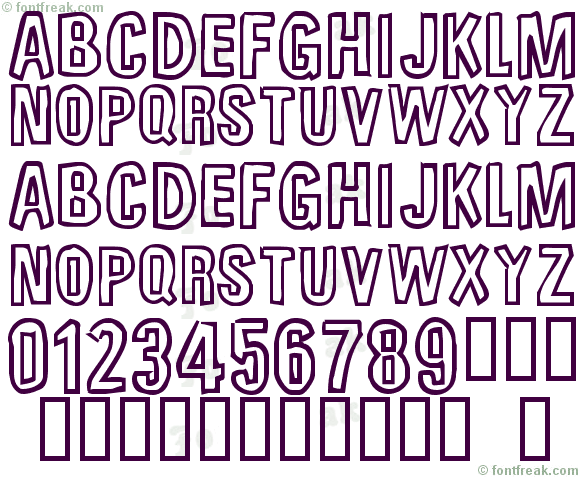
Unfinished Sympahthy
About Unfinished Sympathy
Unfinished Sympathy by Pizzadude is a unique decorative font that captures the essence of a handwritten style while conveying a sense of elegance and emotional depth. This freeware font features a delightful blend of irregular strokes and whimsical curves, making it an ideal choice for projects that require a personal touch. The strokes are moderately thick with varying weights, creating a charming contrast that enhances its overall appeal. The spacing is open, allowing for clarity and readability, even in longer texts.
This font is perfect for a variety of creative applications, including wedding invitations that need a romantic flair, heartfelt greeting cards that convey a personal message, and artistic posters that aim to evoke emotions. Moreover, it can serve beautifully in branding for small businesses, particularly those in the handmade or artisanal sectors, wanting to establish a warm and inviting image. Additionally, Unfinished Sympathy can be an excellent choice for social media graphics, offering a distinct look that stands out in a crowded digital landscape.
The target audience for Unfinished Sympathy includes graphic designers seeking unique typefaces, small business owners looking to enhance their brand identity, and content creators who want their work to resonate on a deeper emotional level. This font's unique characteristics make it an appealing choice for anyone aiming to add a touch of authenticity to their projects.
What truly sets Unfinished Sympathy apart is its ability to evoke feelings of nostalgia and warmth through its imperfect yet artful design. This font invites users to explore their creativity while providing an emotional connection that is often absent in more polished typefaces. With its free availability, the Unfinished Sympathy font free download offers an exceptional opportunity for anyone looking to make their designs memorable and impactful.